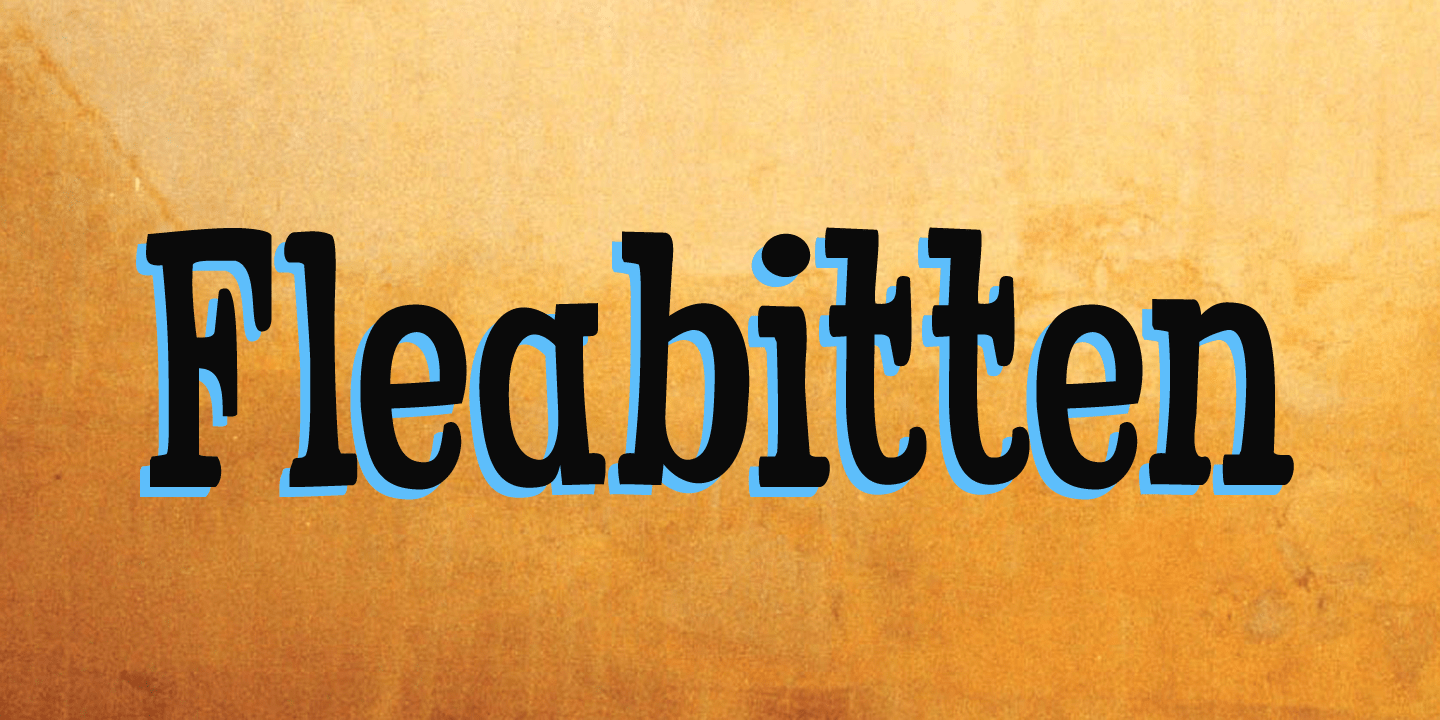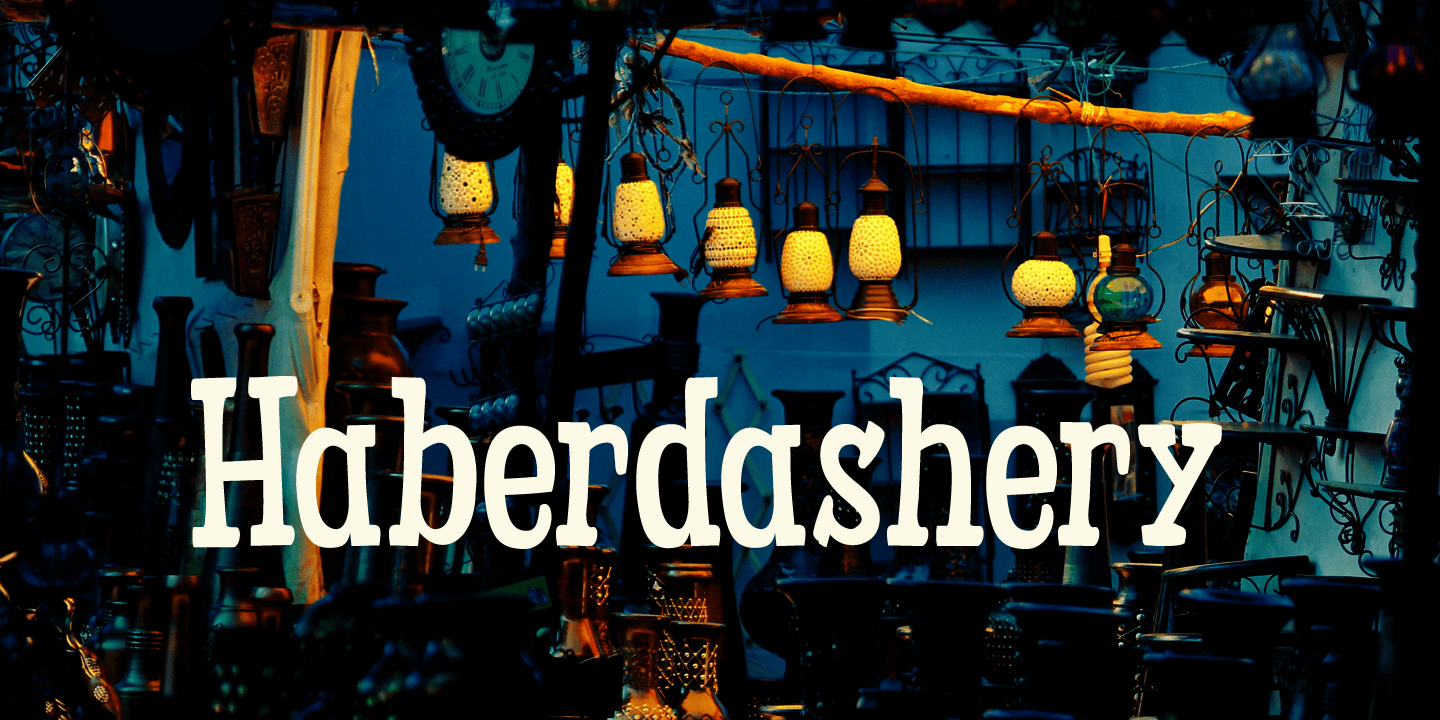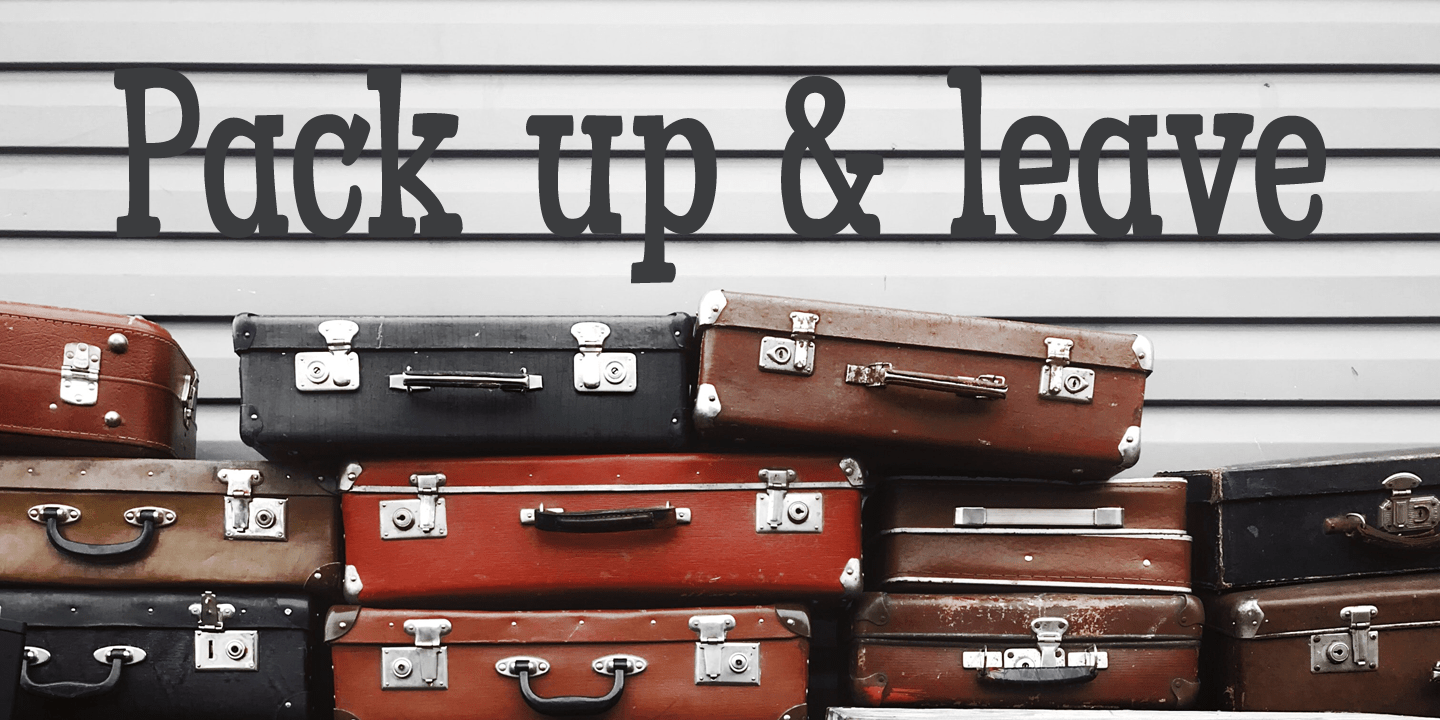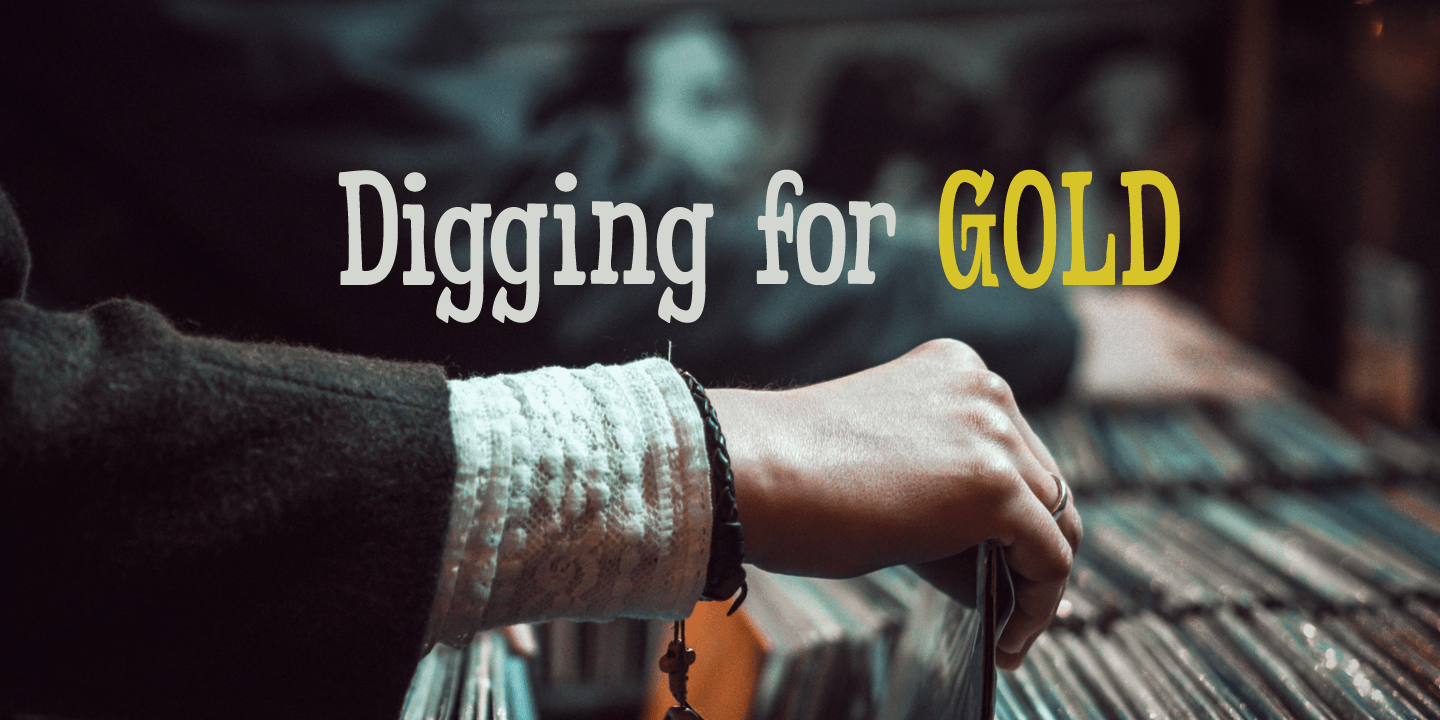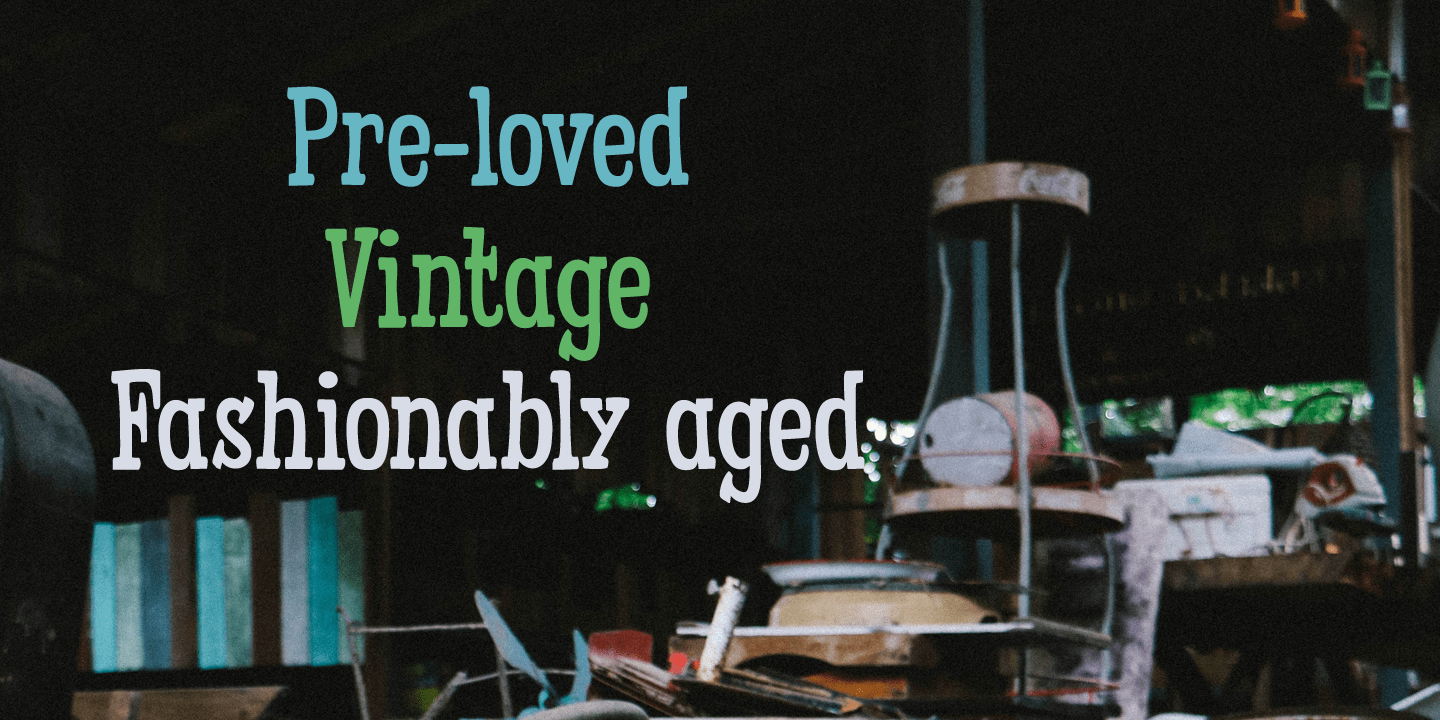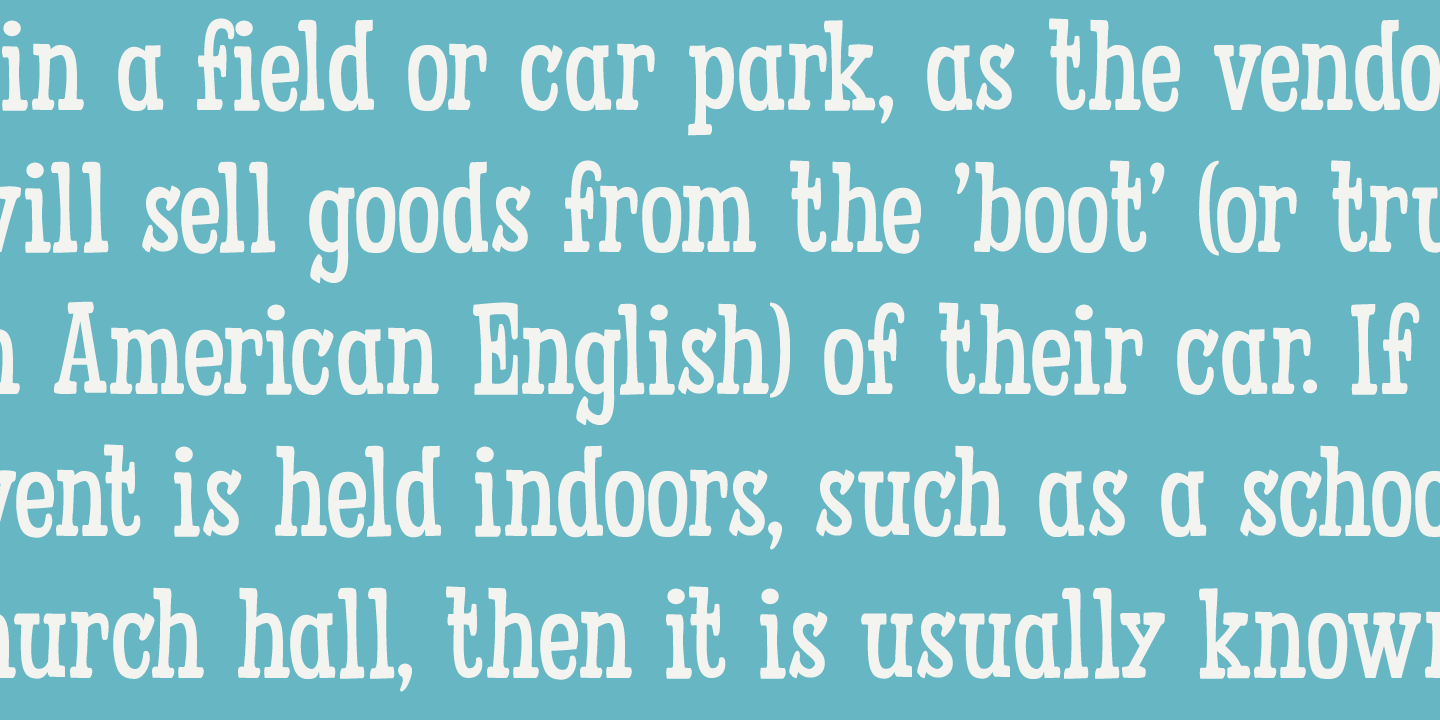
Fleabitten Font
I love going to flea markets and second-hand stores; in fact a lot of the furniture in our home is second hand (or pre-loved, a euphemism I find rather peculiar). I personally believe that buying used products is a good way to help this planet, as no new stuff needs to be made and the old stuff gets a second life.
Fleabitten is a ?western style? serif font. You could use it to pimp the posters for your line dance festival, but hey, be creative! I am sure you'll find some good use for this very nice pre-loved font. Yes, pre-loved: I loved it first!